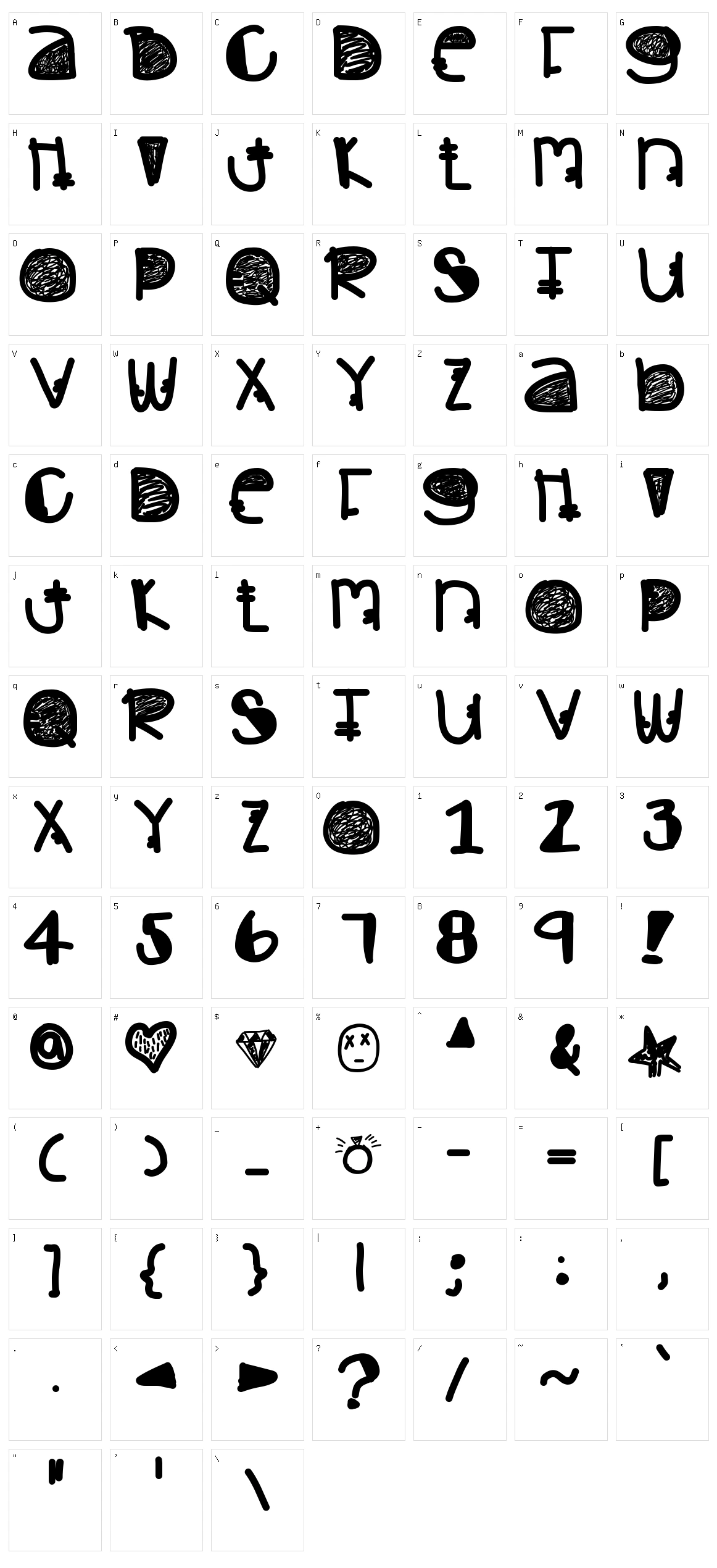
The free font Dynamite is carefully designed by Des Gomez, showcasing a thoughtful balance of creativity and usability and falls under the Cartoon font style. When you download the ZIP file, it contains only 39.47 KB of font files, making it lightweight and quick to download. Please review the license details below to understand permitted usage and distribution rights. If license information is not available, we recommend using this font for personal projects only or contacting the author directly for commercial usage permissions.